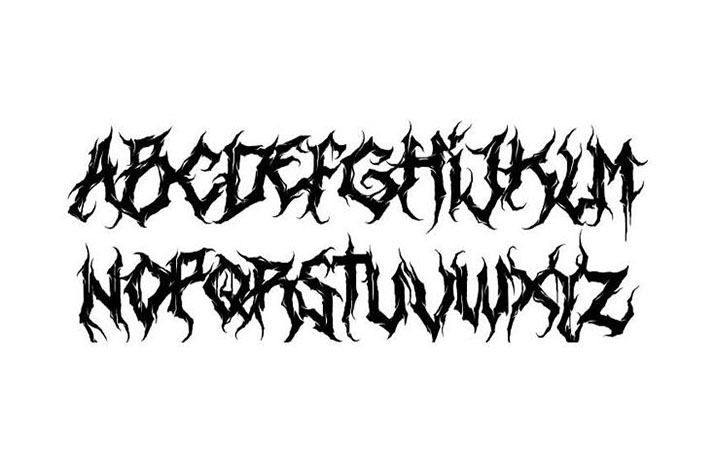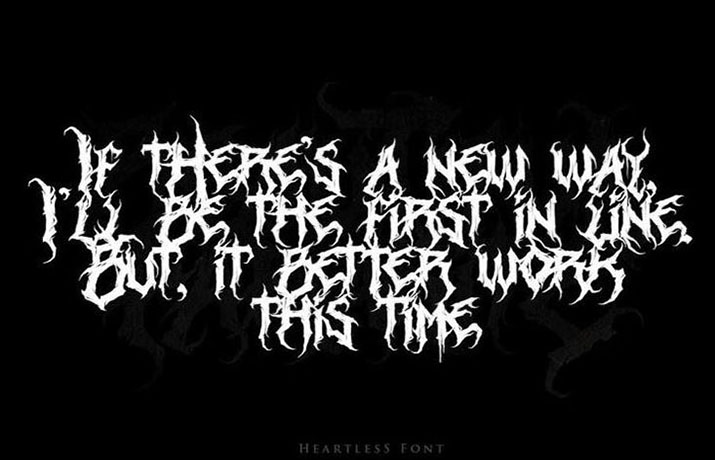
Heartless Font is a fancy horror typeface that has sharp edges and a distorted feel. It was designed and published by Lettersiro Studio.
This font has a unique personality in the letters that have “sharp edges, spark details, and aggressive texture“. Its dark and edgy look gives it a decorative style.
Due to its dark and potentially aggressive design, you can try it out for various purposes such as logos, horror posters, themes, banners, flyers, titles, horror movie posters, titles, promotional materials, and more.
- Many designers already use this typeface; you can use it to make some original logos, movie titles, tattoos, stickers, posters, banner designs, horror movie posters, titles, headers, and much more.
- You may make book covers, book chapters, distinctive symbols, product designs, product packaging, game visuals, t-shirt printing, and a lot more with this really beautiful font.